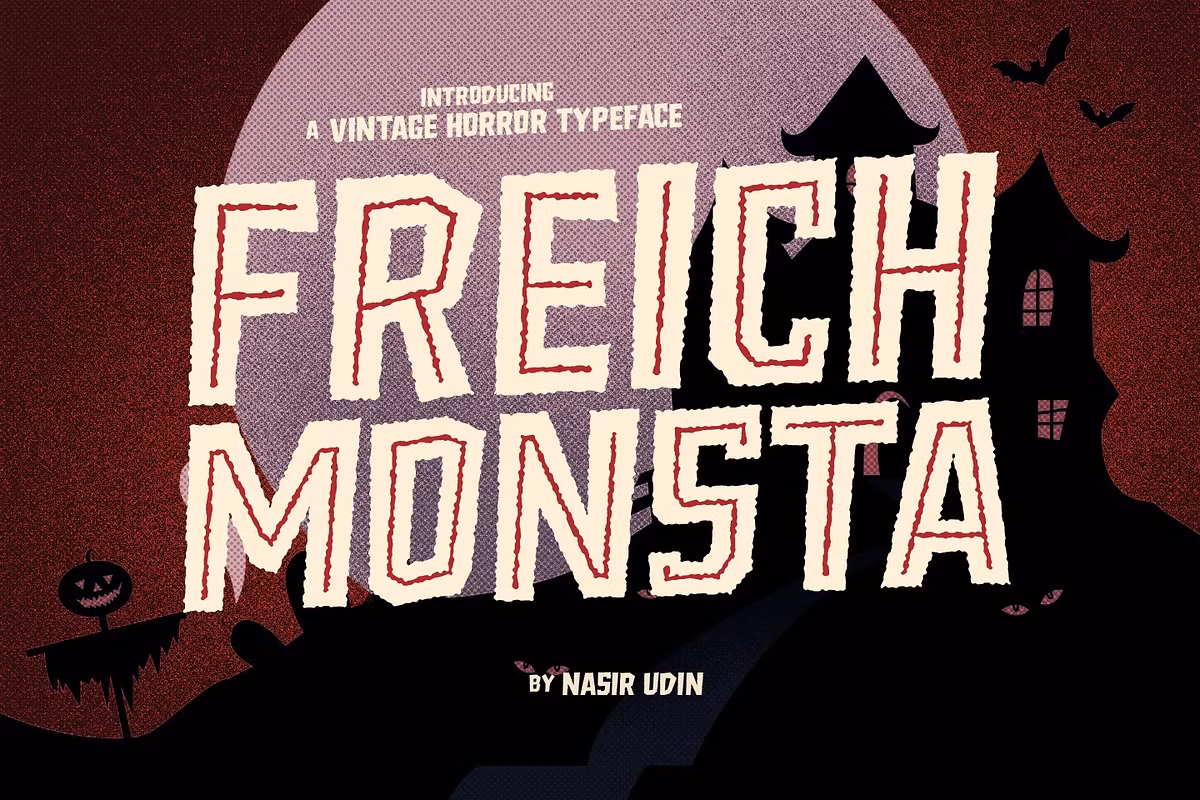
The Freich Monsta - Vintage Horror Font Free Download is a bold and eerie typeface inspired by the classic horror genre with a vintage twist. Perfect for Halloween-themed designs, horror movie posters, spooky branding, and anything that requires a dark, edgy, and vintage feel, this font brings a touch of creepy charm to your creative projects.
With its distressed, jagged edges and dramatic style, Freich Monsta captures the essence of retro horror typography. It includes uppercase letters, numbers, punctuation, and multilingual support, ensuring it’s versatile for all your spooky creations.
Add some vintage horror flair to your designs with the Freich Monsta - Vintage Horror Font Free Download. Try it today and bring your projects to life with a chilling, nostalgic edge!